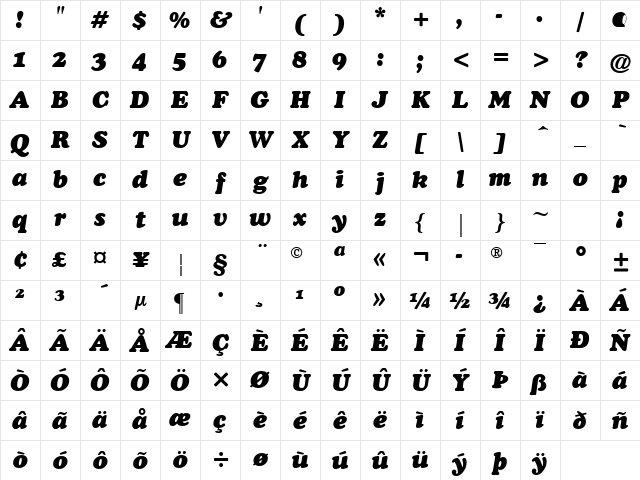
Ozzie Black Italic
Ozzie Black Family
Design Context for Ozzie Black
Ozzie Black is a composed and adaptable typeface that performs quietly and consistently across a wide range of design contexts. The slanted form adds forward momentum and visual energy.
Pro Tip: Use Ozzie Black for emphasis, pull quotes, and subheadings where its slanted energy can add rhythm to the layout.